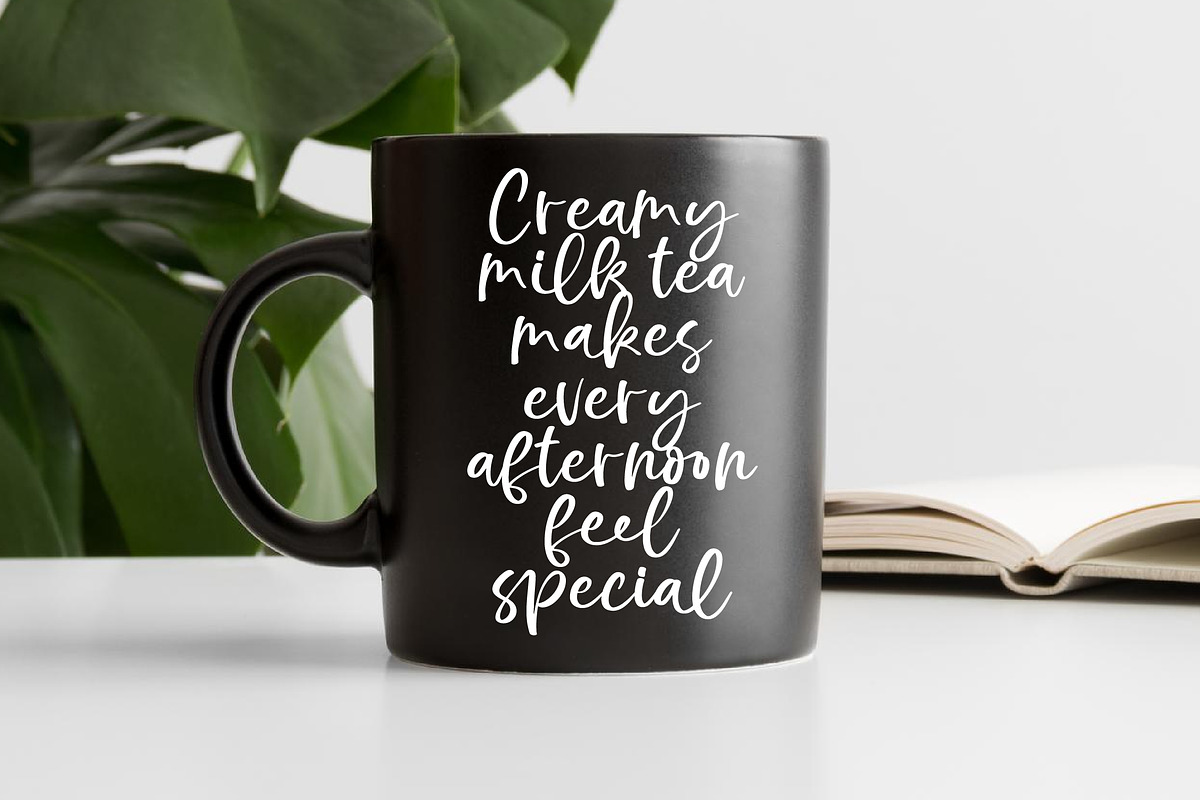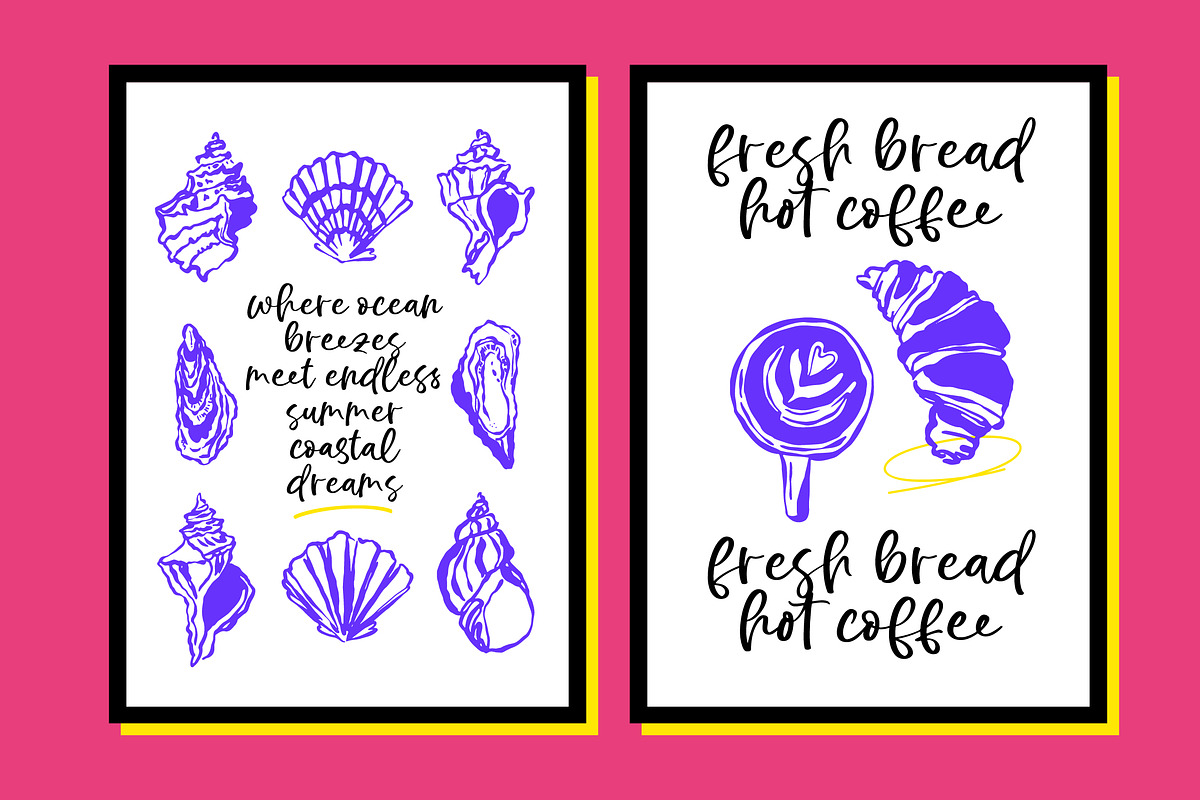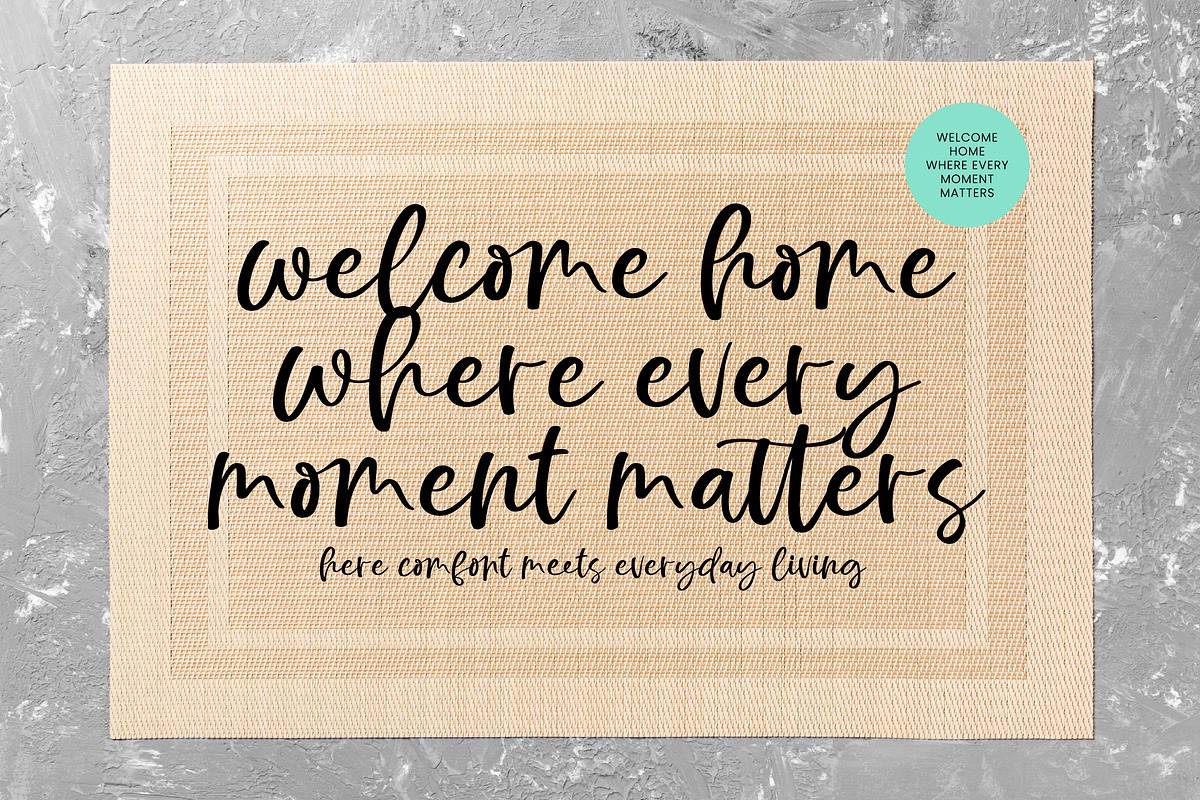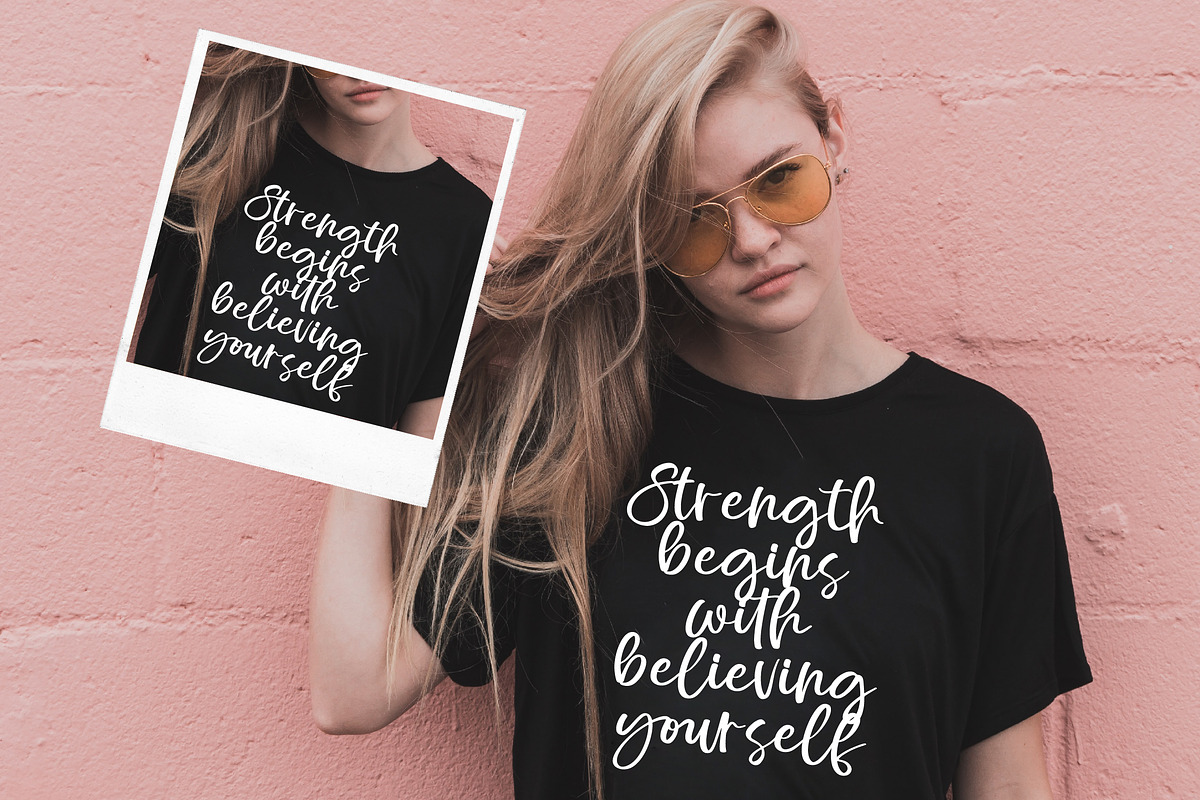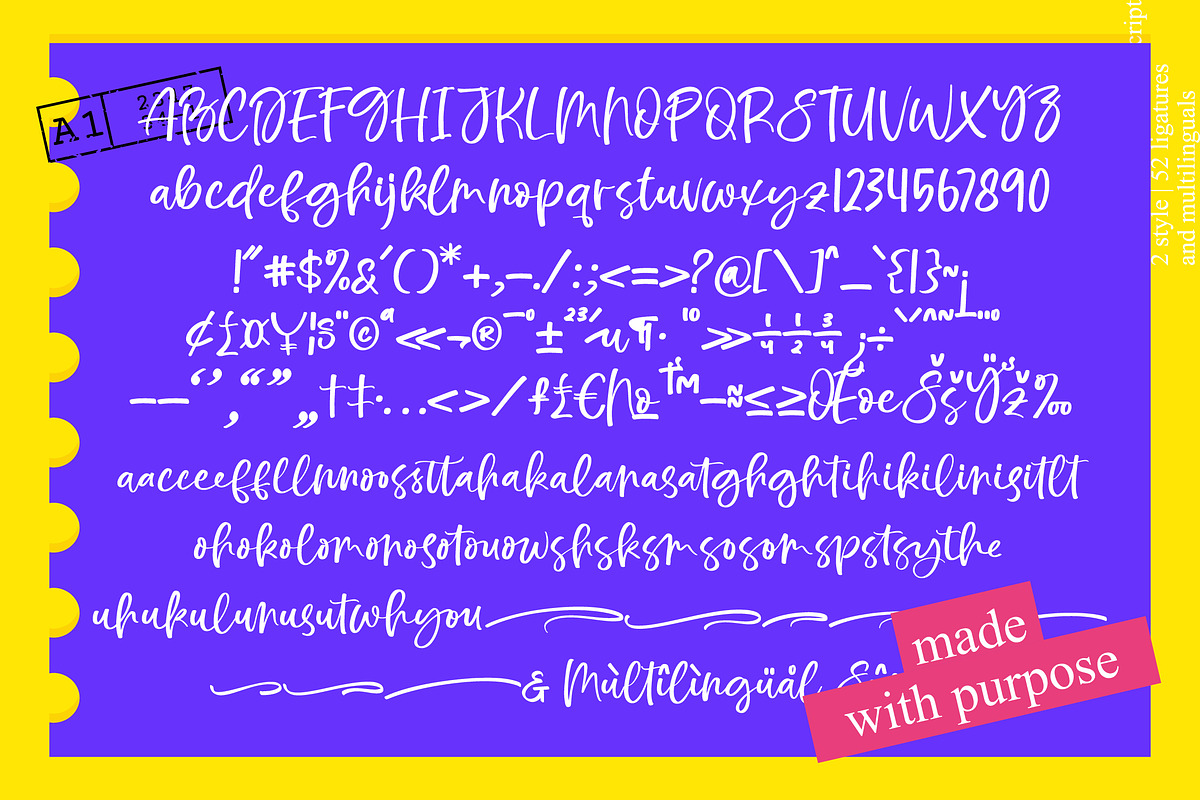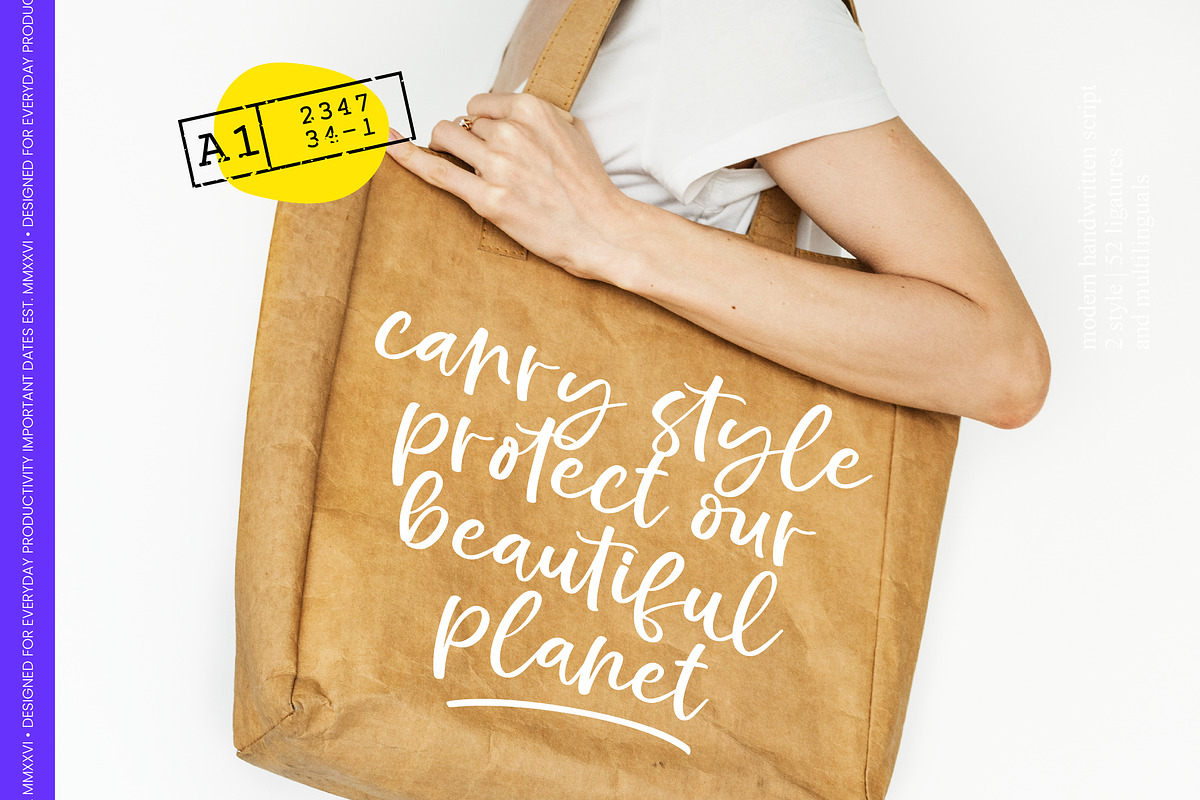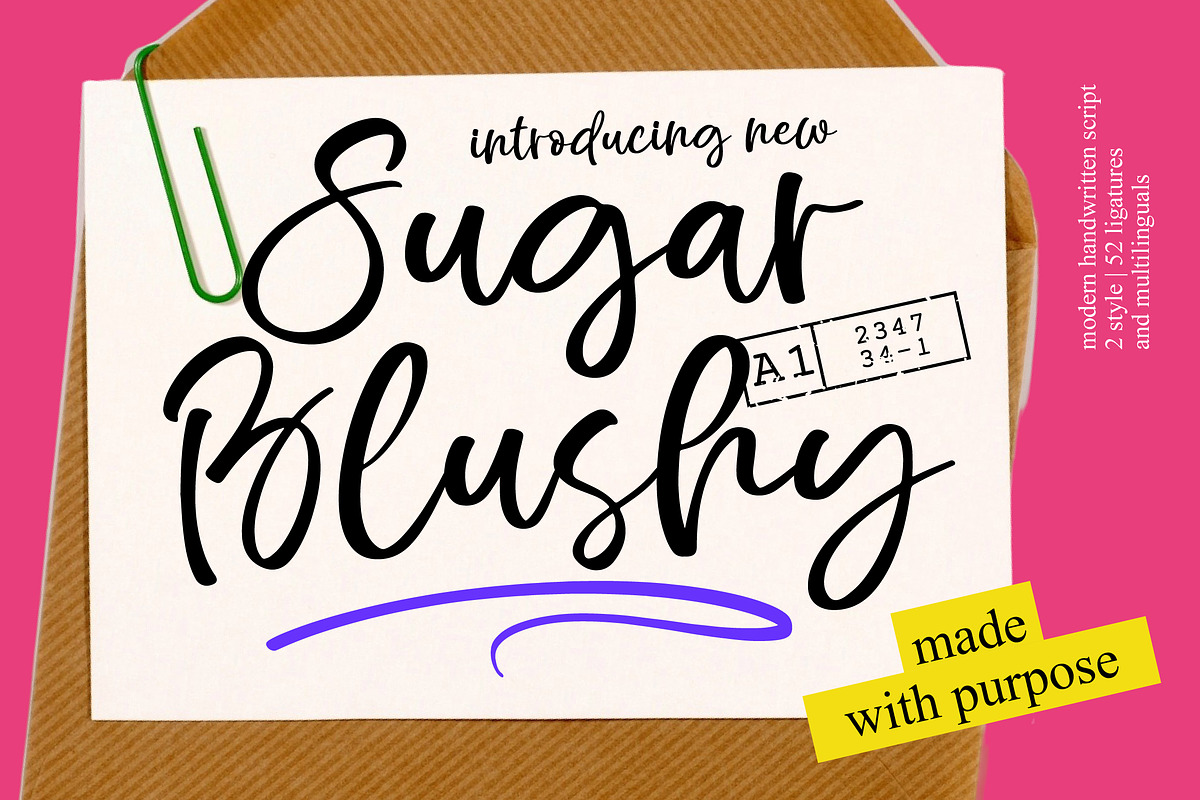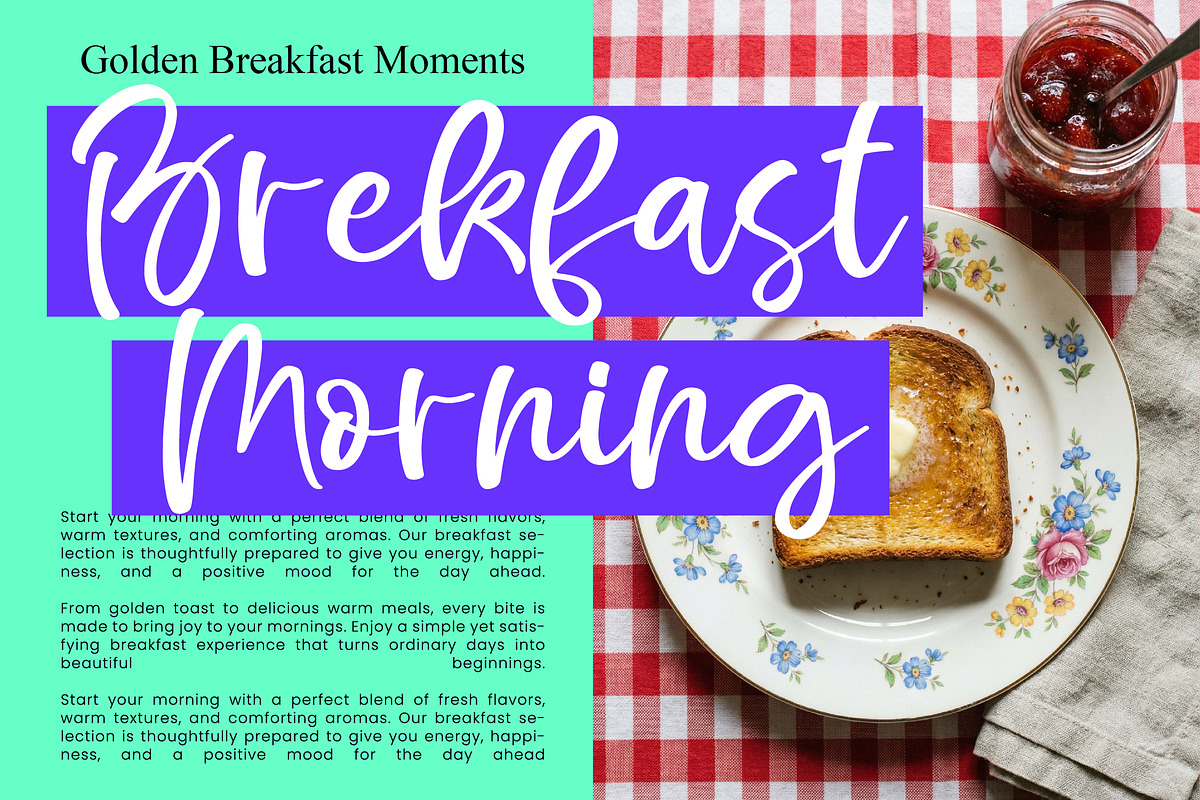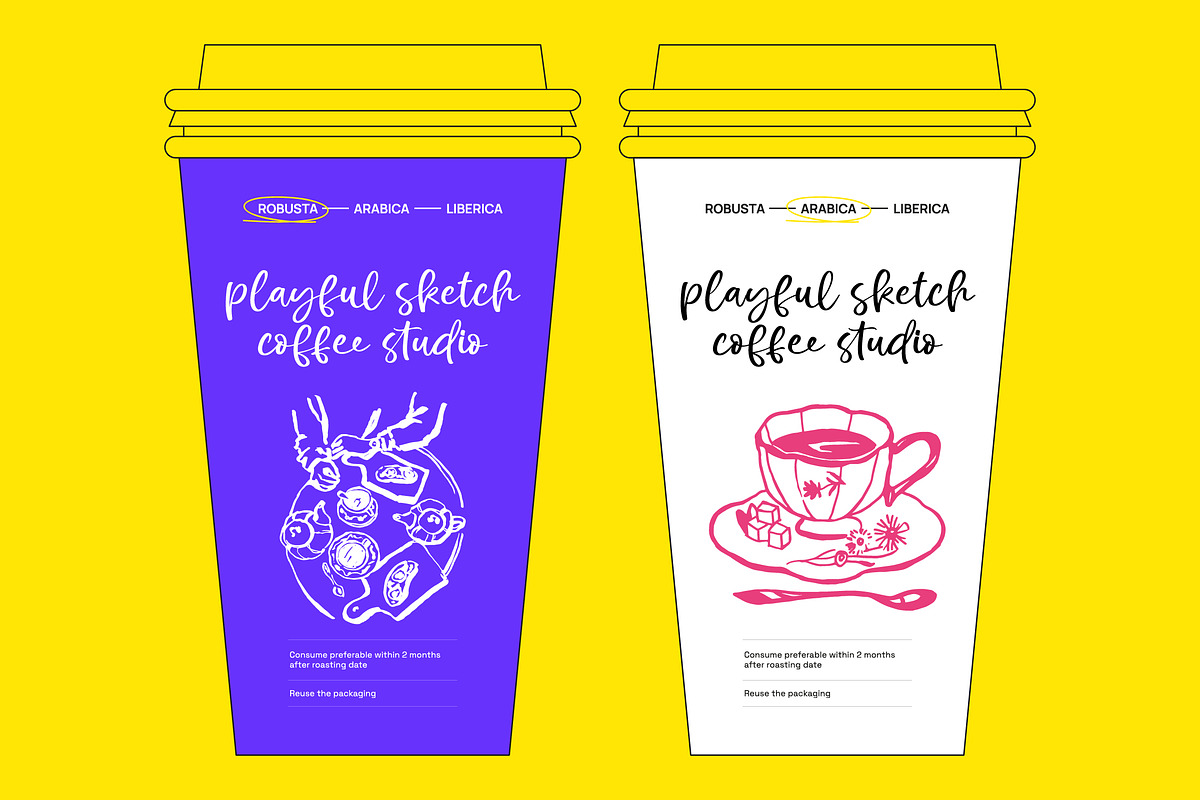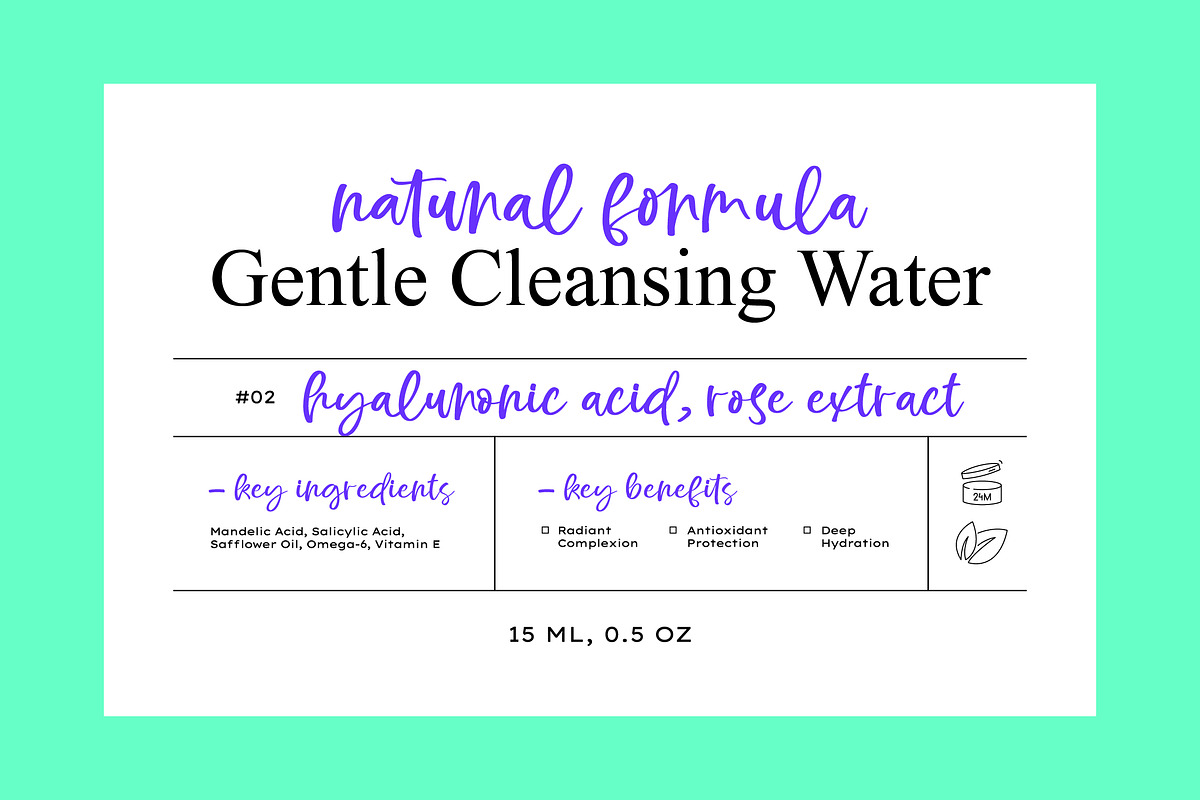
Sugar Blushy Modern Handwritten
Sugar Blushy - Modern Handwritten Script
Elevate your creative vision with a typeface that embodies effortless elegance and organic flow. Sugar Blushy - Modern Handwritten Script is a masterclass in contemporary calligraphy, blending a chic aesthetic with an authentic, hand-drawn feel. Its fluid strokes and rhythmic character movement create a sophisticated atmosphere that resonates with modern audiences seeking a personal touch. By prioritizing visual harmony, this typeface ensures your message remains legible while exuding an unmistakable sense of bespoke craftsmanship.
Precision meets performance in a font designed to handle the complexities of professional design workflows. Featuring over fifty unique ligatures, this typeface allows for natural connections that mimic genuine handwriting with stunning accuracy. With its extensive multilingual support, Sugar Blushy - Modern Handwritten Script adapts seamlessly across global markets, making it incredibly versatile for international projects. This comprehensive glyph set ensures that your brand voice remains consistent and impactful regardless of the linguistic requirements of your global campaign.
Unlock limitless possibilities for your brand identity with a font that transitions effortlessly between diverse design mediums. Sugar Blushy - Modern Handwritten Script is perfect for luxury branding, high-end packaging, and editorial design where a touch of warmth is required. Whether you are crafting upscale wedding invitations, social media graphics, or premium logo marks, its expressive nature provides the ideal balance of professionalism and personality. The script’s high-contrast strokes make it equally effective for prominent headlines or delicate subtext in lifestyle publications.
Invest in a typography solution that delivers immediate commercial impact and long-term design value. Choosing Sugar Blushy - Modern Handwritten Script means selecting a tool that enhances brand recognition and emotional connection. Its modern script style stays ahead of design trends, offering a timeless quality that protects your investment in high-quality assets. Secure this essential typographic resource today to transform your projects into compelling visual narratives that capture attention and drive results in a competitive marketplace.